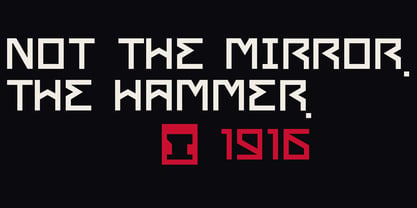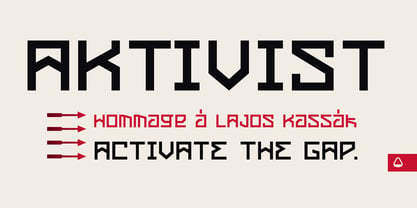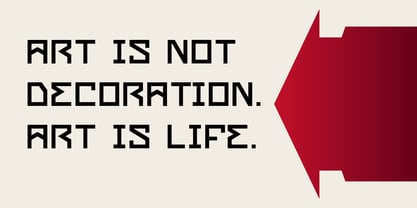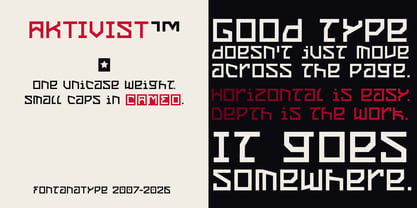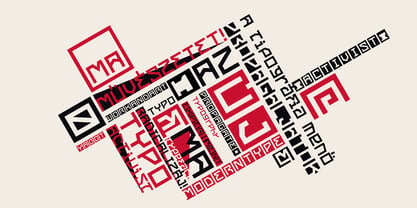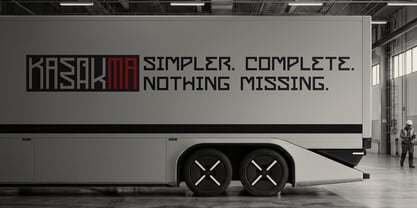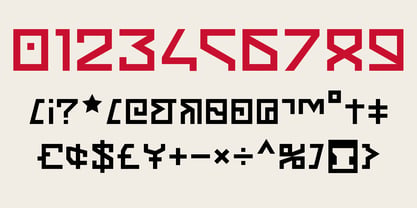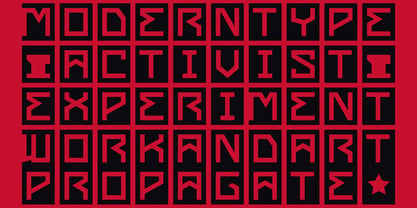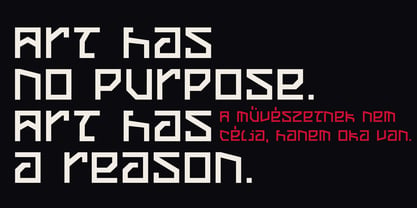
Aktivist
The Aktivist Font Family was designed by Amondó Szegi and published by Fontanatype. Aktivist contains 1 styles. More about this family
AKTIVIST is a high-impact experimental display typeface designed for bold visual identities, striking headlines, posters, editorial design, and contemporary branding. Its distinctive unicase construction creates immediate graphic tension, making it ideal wherever typography must speak with confidence, character, and presence. Built for designers who want more than neutrality, AKTIVIST delivers expressive rhythm, sharp geometry, and a strong visual voice. Equally at home in cultural projects, fashion, publishing, and experimental graphic work.
Inspired by the visual language of the Hungarian avant-garde, AKTIVIST pays homage to Lajos Kassák and the radical spirit of Ma (Today), the influential modernist journal founded in 1916.
Rooted in Constructivist composition and early twentieth-century activist aesthetics, the typeface explores the tension between structure and disruption. Sharp geometry meets deliberate irregularity; familiar letterforms are subtly reworked to create movement, friction, and visual momentum. A hidden Small Caps cameo adds layer — an understated secondary voice embedded within the system.
Designed as a single-weight display font, AKTIVIST embraces reduction and precision. It does not seek neutrality. It is designed to stand out — and stand for something.
More than a revival, AKTIVIST is a contemporary reinterpretation of a historical attitude — one that reflects Kassák’s belief in the social role of art and the transformative power of form.
Art is not decoration. Art is life.